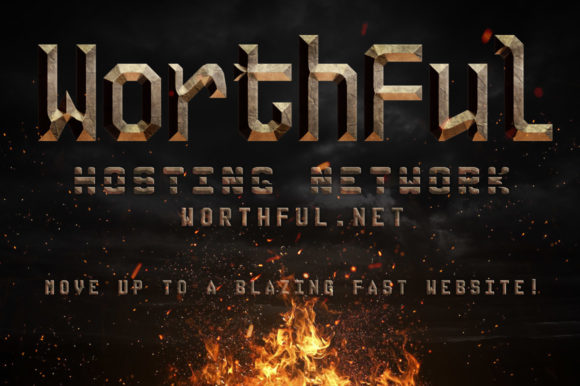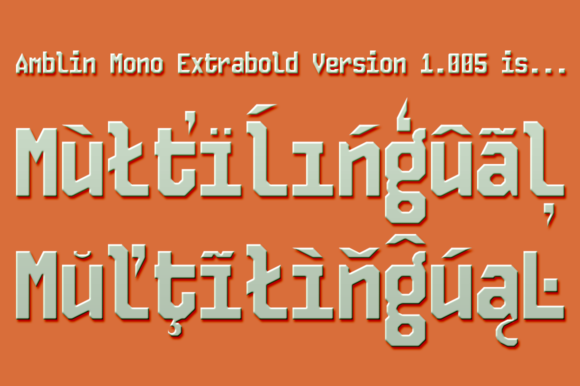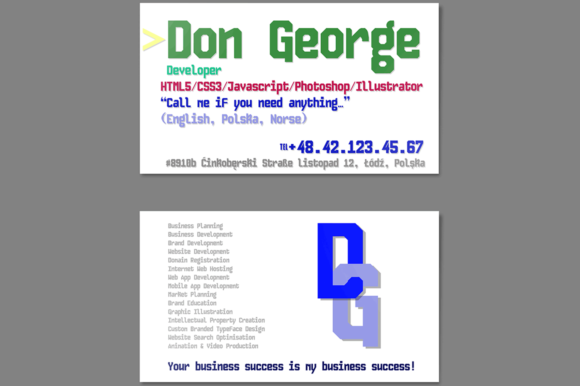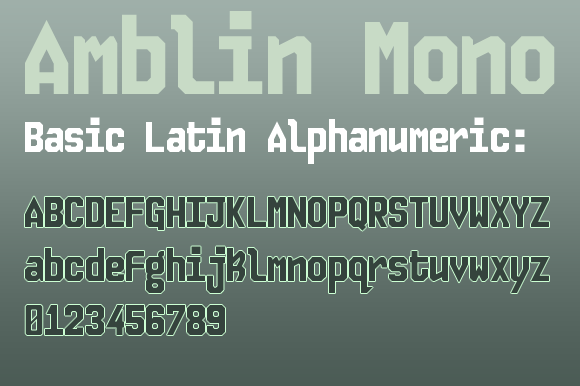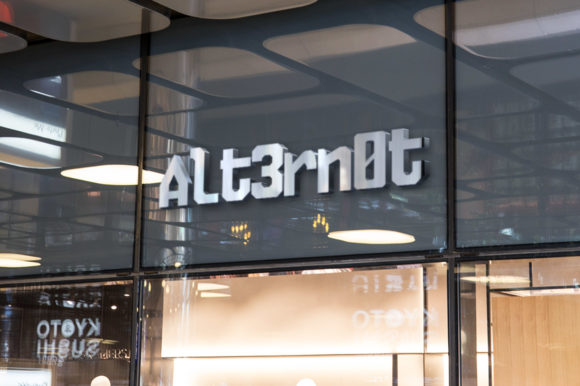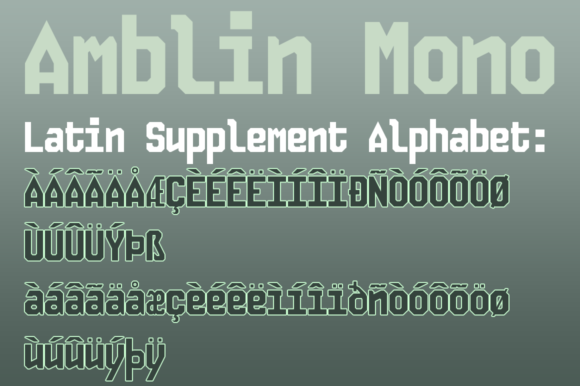
Introducing Amblin Mono: The Fun and Quirky Sans Serif Font
Are you tired of using the same old fonts in your creative projects? Look no further than Amblin Mono, the enchanting sans serif font that embodies fun, quirkiness, and authenticity. With its unique and playful design, Amblin Mono is sure to turn any creative idea into a true standout.
The Story Behind Amblin Mono
Amblin Mono is a font that is inspired by the classic cartoons and movies of the 80s and 90s. Its design is reminiscent of the iconic fonts used in beloved films and TV shows from that era. The font is named after the legendary film production company Amblin Entertainment, known for producing some of the most iconic and imaginative films of all time, including E.T. the Extra-Terrestrial, Ghostbusters, and Indiana Jones.
What Makes Amblin Mono Special?
So, what sets Amblin Mono apart from other fonts out there? Here are just a few of its standout features:
- Unique and Playful Design: Amblin Mono has a distinctive and quirky design that is sure to grab attention. Its sans serif design makes it highly legible, while its playful curves and irregularities give it a charming and whimsical feel.
- Fun and Quirky: Amblin Mono is the perfect font for designers and crafters who want to add a touch of fun and quirkiness to their projects. Whether you’re working on a children’s book, a cartoon, or a craft project, Amblin Mono is sure to bring a smile to people’s faces.
- Authentic and Retro: Amblin Mono has a distinctly retro feel that is perfect for designers and crafters who want to evoke the nostalgia of the 80s and 90s. Its design is inspired by classic cartoons and movies, making it a great choice for projects that require a vintage or retro vibe.
How to Use Amblin Mono in Your Projects
Amblin Mono is a versatile font that can be used in a wide range of creative projects, from digital designs to craft projects. Here are just a few ideas to get you started:
- Children’s Books and Illustrations: Amblin Mono is a great choice for children’s books and illustrations, thanks to its playful and whimsical design.
- Cartoon and Animation Projects: If you’re working on a cartoon or animation project, Amblin Mono is a great choice for titles, subtitles, and character speech bubbles.
- Craft Projects: Amblin Mono is also a great choice for craft projects, such as handmade cards, invitations, and DIY decorations.
- Digital Designs: Amblin Mono can be used in a wide range of digital designs, from social media graphics to website headers and blog posts.
Tips for Getting the Most Out of Amblin Mono
Here are a few tips for getting the most out of Amblin Mono:
- Experiment with Different Sizes: Amblin Mono looks great in a wide range of sizes, from small and delicate to large and bold. Experiment with different sizes to find the one that works best for your project.
- Combine with Other Fonts: Amblin Mono can be paired with other fonts to create a unique and eye-catching design. Try combining it with a serif font for a classic and elegant look.
- Play with Colors: Amblin Mono looks great in a wide range of colors, from bright and bold to pastel and soft. Experiment with different colors to find the one that works best for your project.
Amblin Mono is a fun and quirky sans serif font that is sure to turn any creative idea into a true standout. With its unique and playful design, authentic and retro vibe, and versatility, Amblin Mono is the perfect choice for designers and crafters who want to add a touch of fun and quirkiness to their projects. So why not give it a try and see what amazing creations you can come up with?